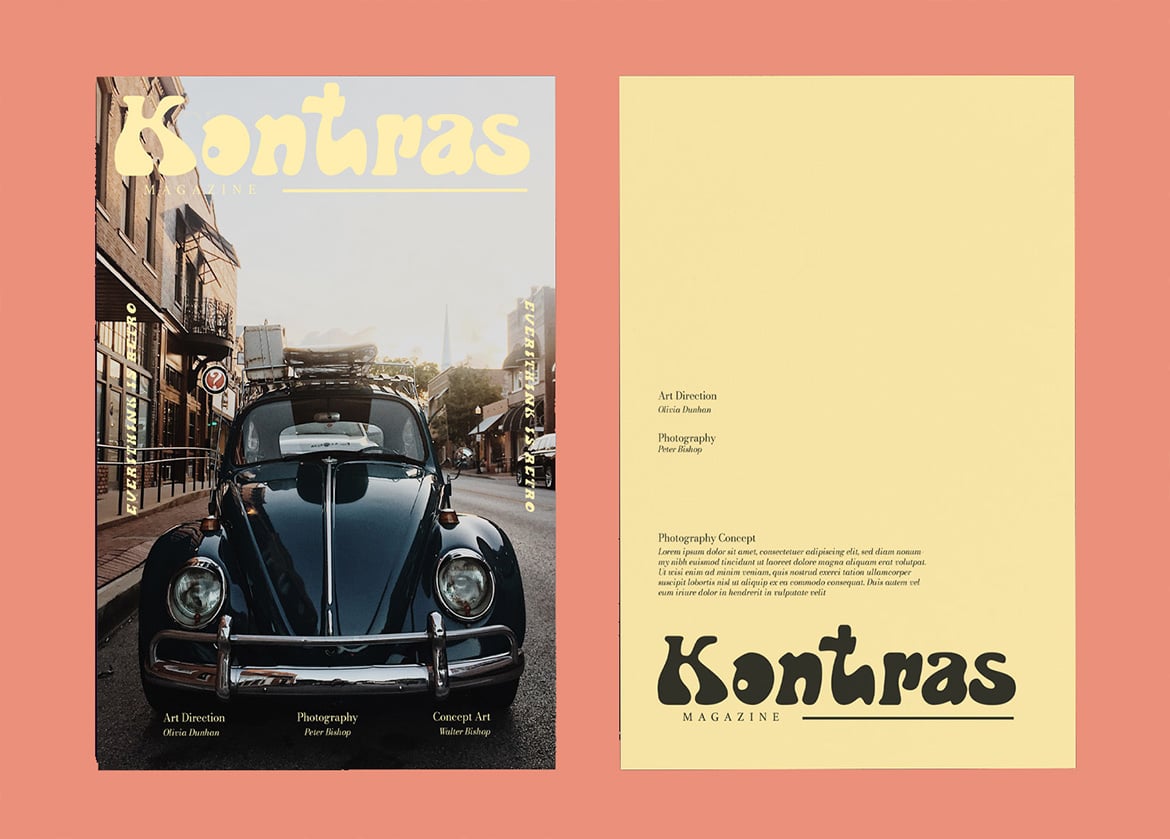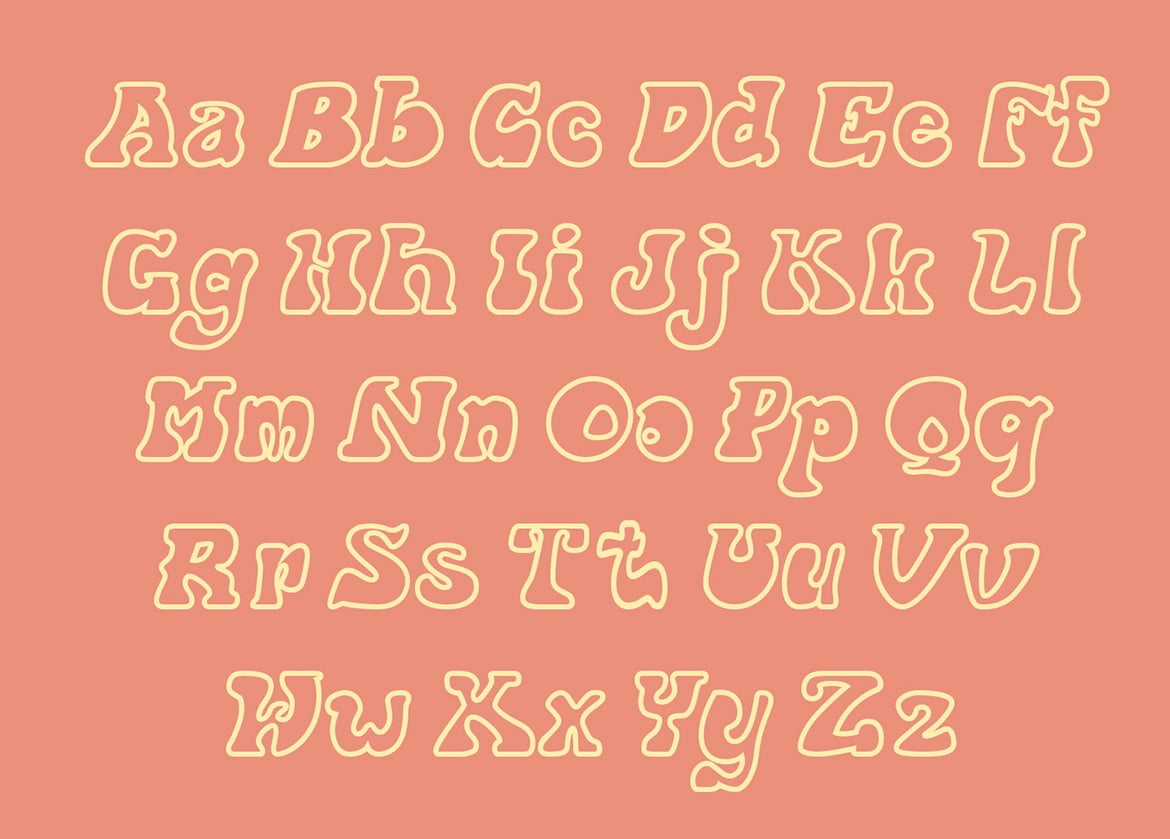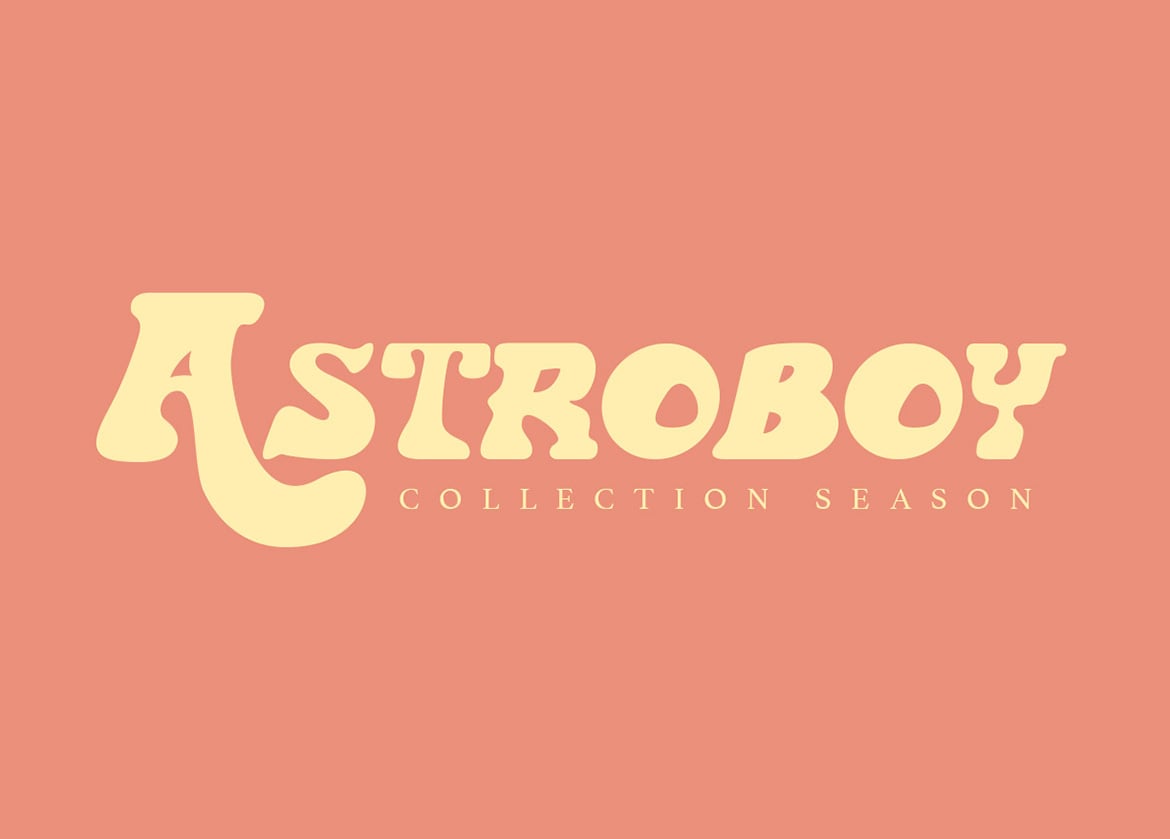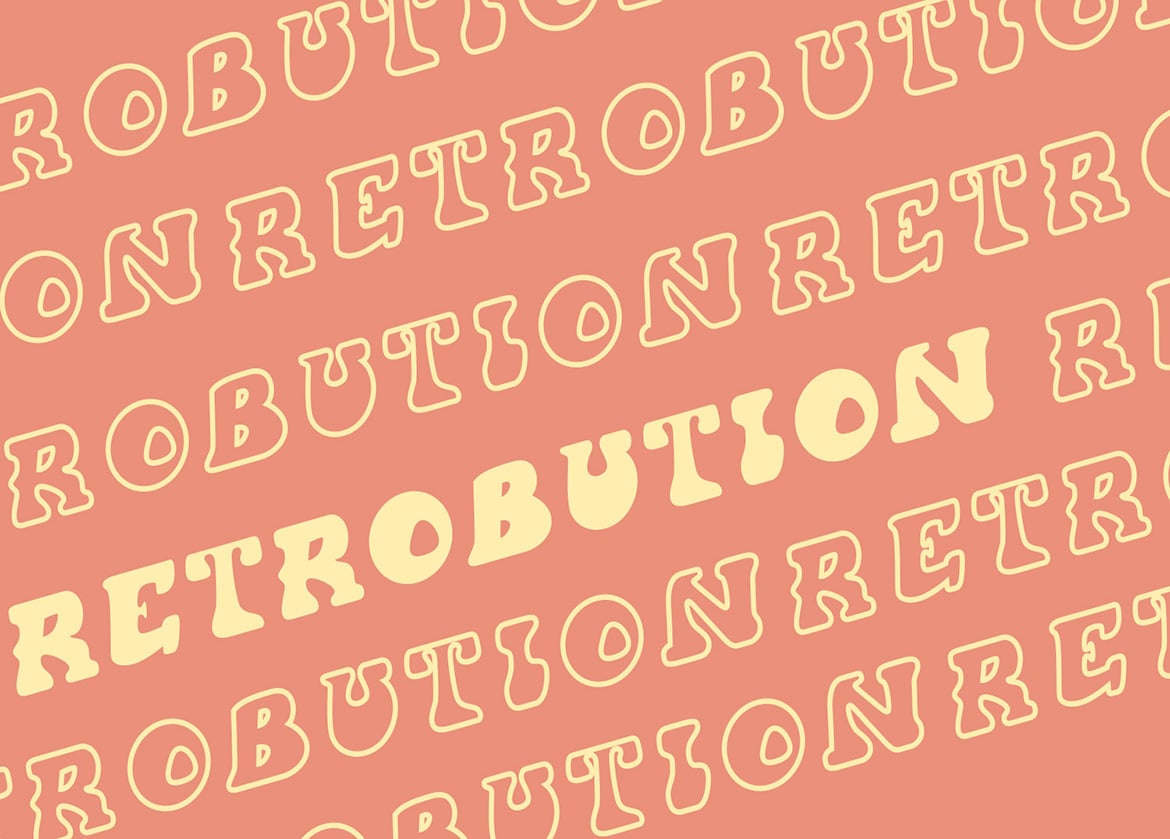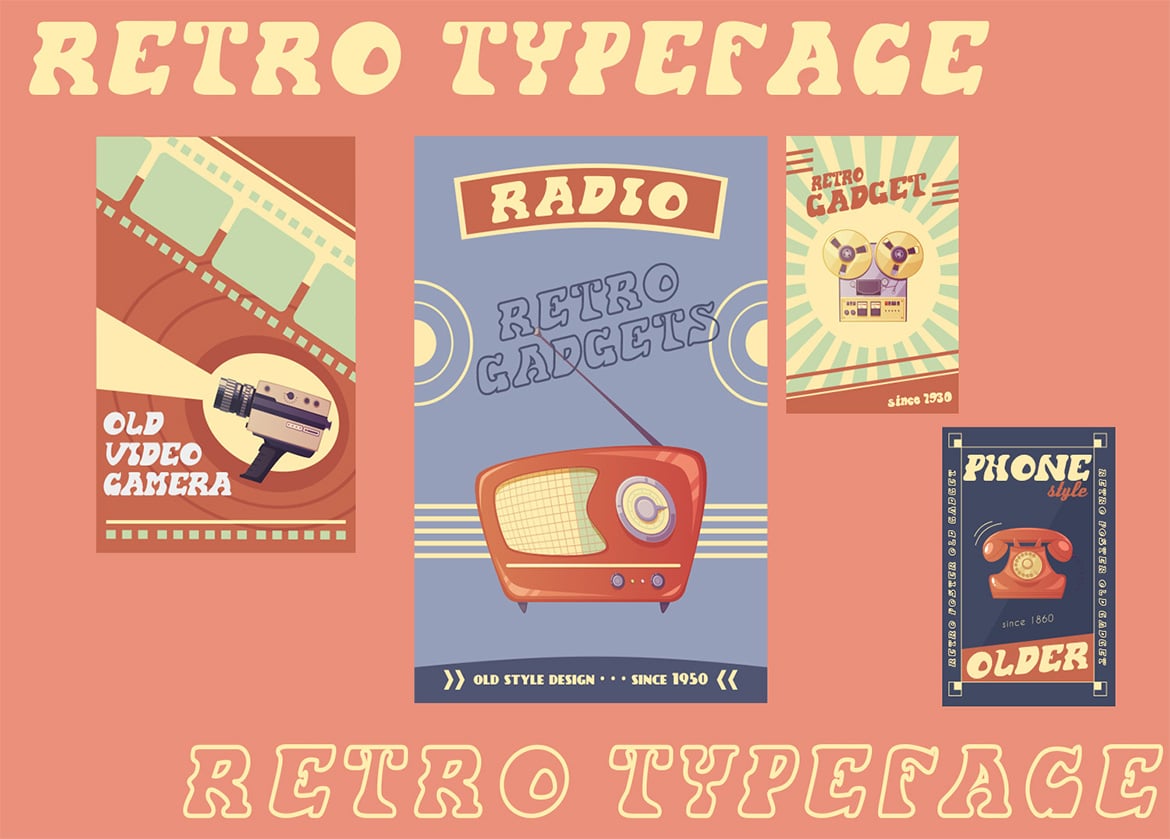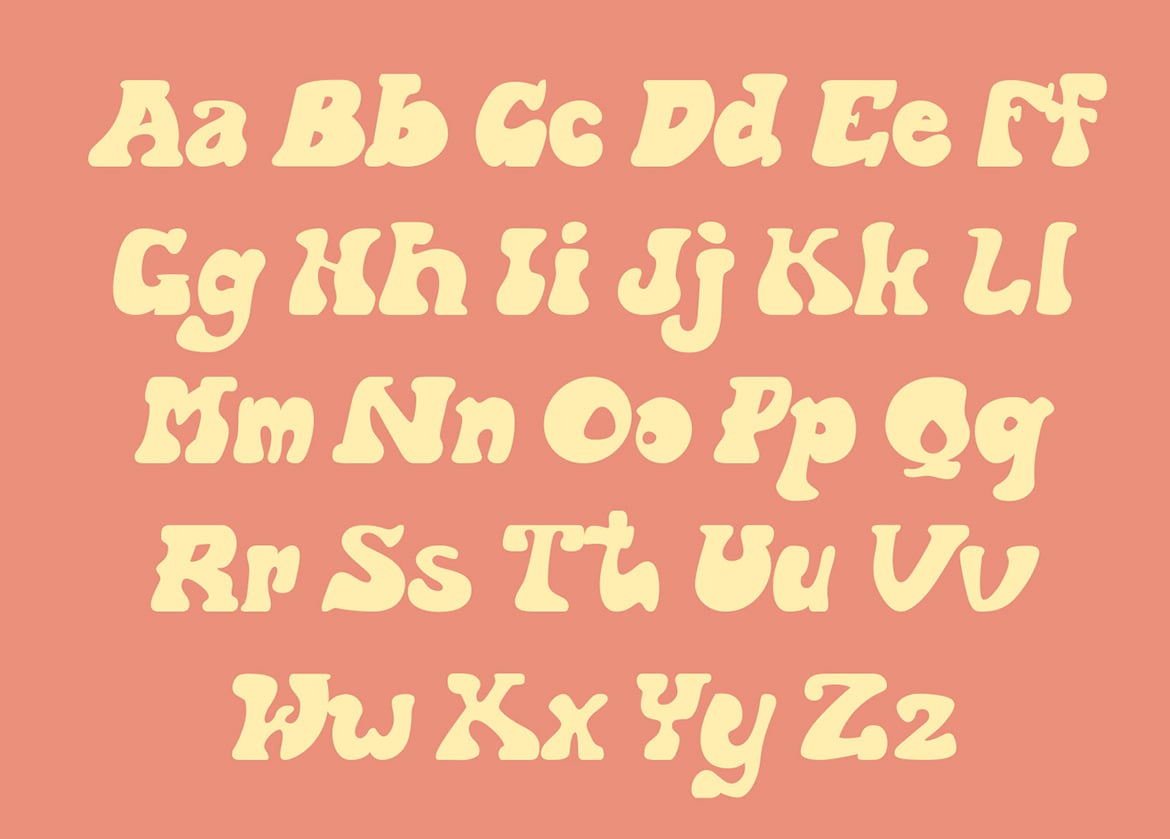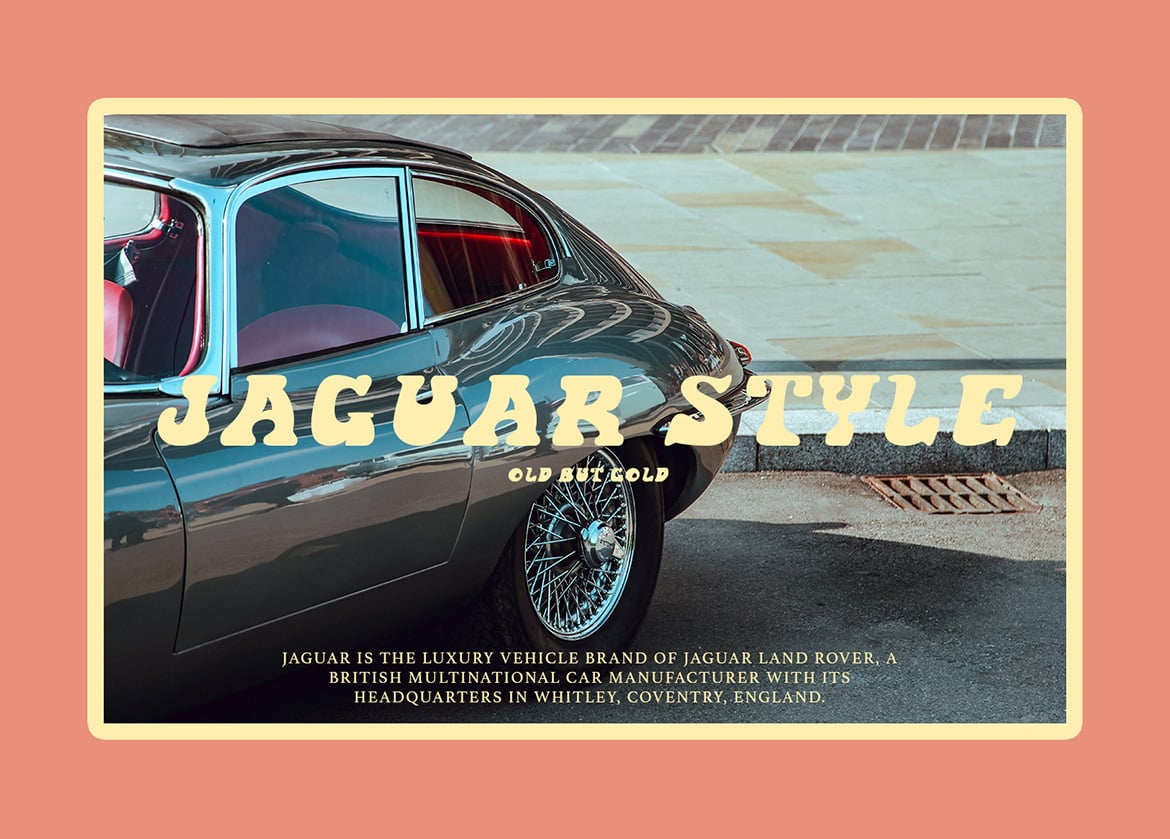
Hofisem Retro Serif Typeface
Hofisem Retro Serif Typeface is a font in the 1970s style, full of nostalgia and handmade funk. has a thickness that is very fitting for retro styles and the like, solid and has the uniqueness of each character style he made
Hofisem came with opentype features such stylistic alternates, stylistic sets & ligatures good for logotype, poster, badge, book cover, tshirt design, packaging and any more.